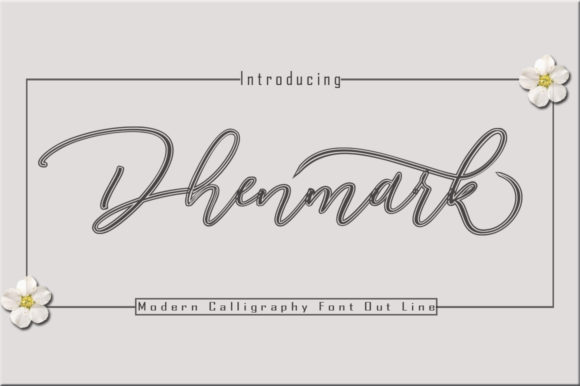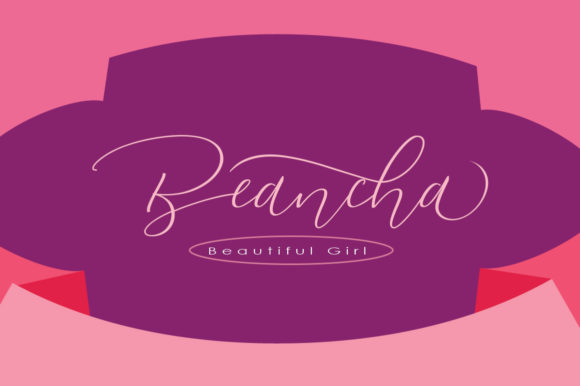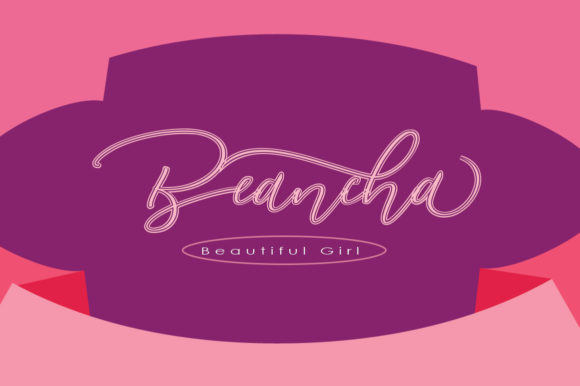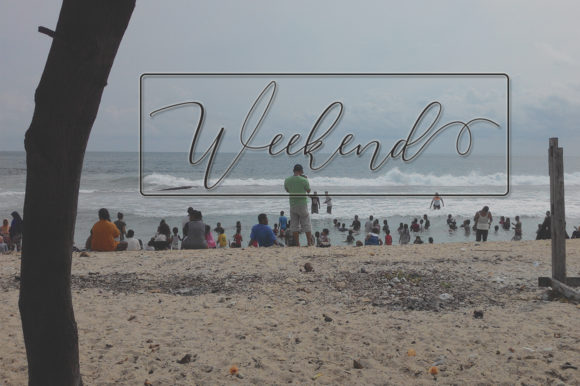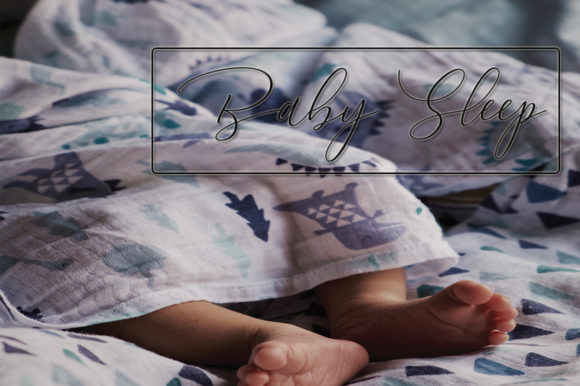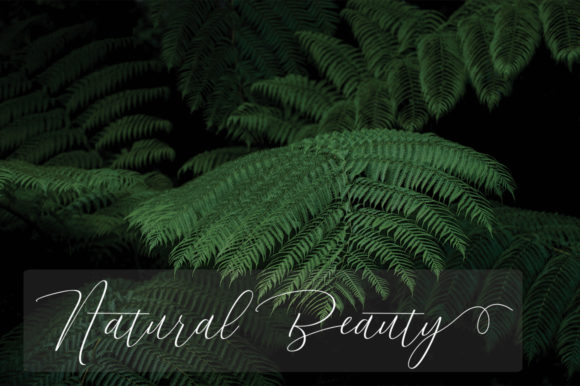
Discover the Timeless Elegance of Dhenmark Duo Font
Remember the moment when you stumbled upon the perfect font to elevate your design project? For many creatives, it’s that instant when everything falls into place. The words seem to flow effortlessly, and the overall aesthetic just clicks. That’s exactly what the Dhenmark Duo Font aims to deliver – a seamless fusion of style and sophistication.
As a versatile font duo, Dhenmark offers an authentic touch to any design project. Whether you’re crafting a logo, creating a brochure, or building a website, this elegant font is sure to make a lasting impression. What sets Dhenmark apart is its ability to transcend time, ensuring your design remains timeless and relevant for years to come. For designers, Dhenmark Duo Font is a valuable asset that can help elevate their creative output and leave a lasting mark.
Dhenmark Duo Font Key Features
- Unique Characteristics: Dual-weight design with a bold and regular version, perfect for creating visual hierarchies
Dhenmark Duo Font Review
Overall, I’m impressed with the Dhenmark Duo Font, but like any font, it has its strengths and weaknesses.
- The font has a modern and sleek design, making it perfect for digital applications.
- The duo aspect of the font allows for a nice contrast between the two weights, creating a visually appealing combination.
- The font is highly legible, even at smaller sizes, which is essential for digital media.
- The font family includes a wide range of weights and styles, making it versatile and adaptable to different design needs.
- The font may be too modern for traditional or conservative design projects, which could limit its use.
- The duo aspect of the font may not be suitable for projects where a single weight is needed.
- The font family may not be as extensive as some other font families, which could limit its use in certain situations.
Overall, I think the Dhenmark Duo Font is a solid choice for digital design projects, but it may not be the best fit for every project.
Tips for Getting the Most Out of Dhenmark Duo Font
Here are some tips for getting the most out of Dhenmark Duo Font:
- Use Dhenmark Duo Font in combination with bold or italic text to create visual interest.
- Experiment with different font sizes to create a sense of hierarchy.
- Use Dhenmark Duo Font in headings and titles to create a consistent brand identity.